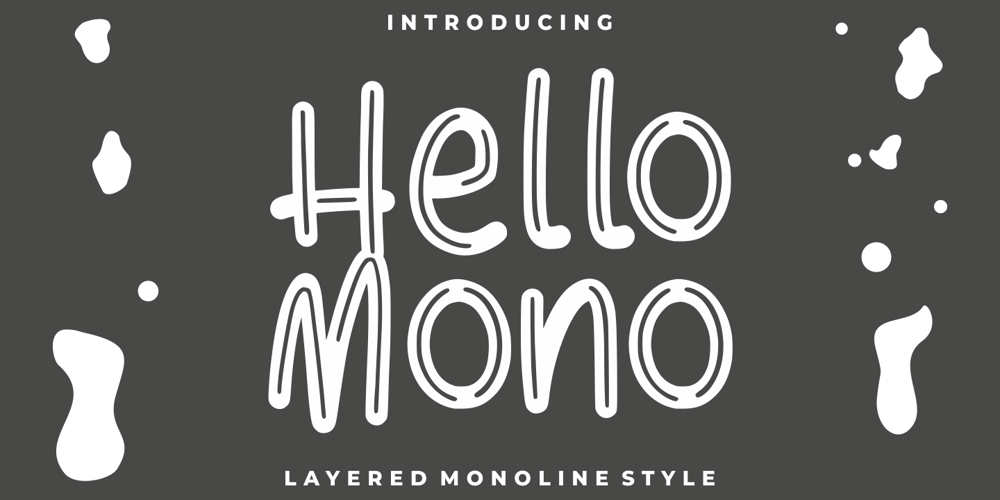
Hello Mono One Font Family was designed by Good Java and published by Good Java Studio. Hello Mono One contains 2 styles and family package options. Introducing Hello Mono with Layered InlineHello Mono is a playfully display font make from handdrawn ideas in typeface. This font includes full of Alphabetical glyphs, Numerals, and punctuation. This is so perfect for invitations, monograms, wedding, fashion, branding, label, handdrawn or logotype.